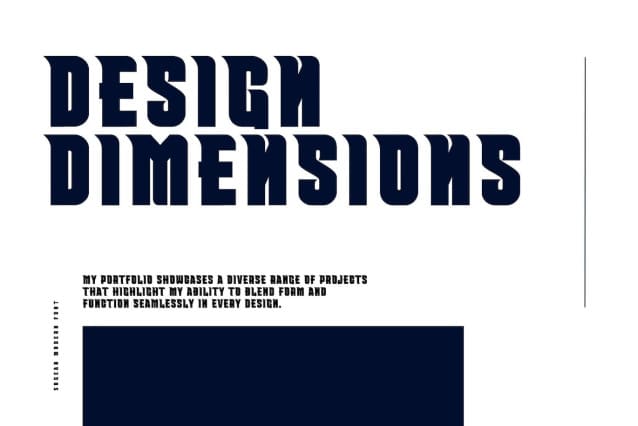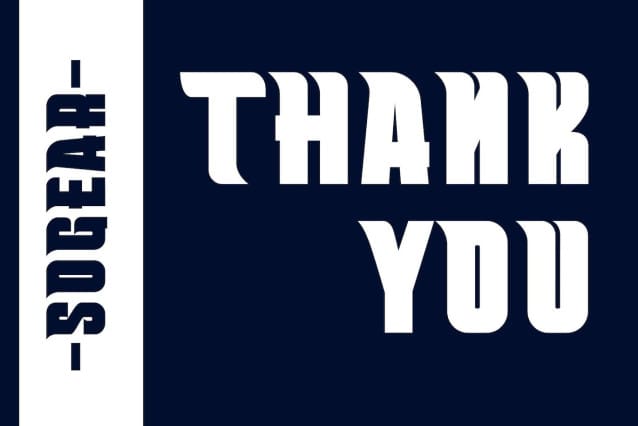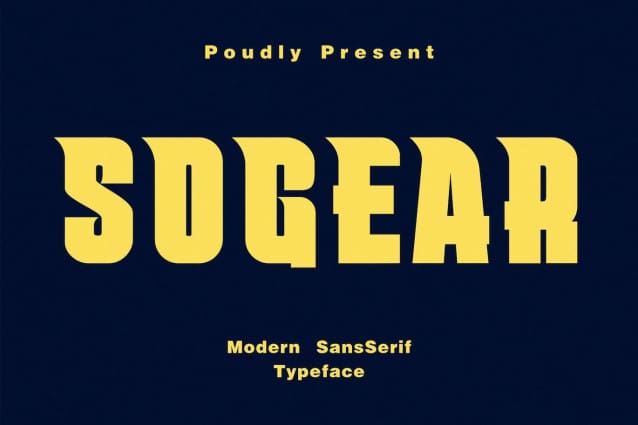
Sogear Font
Sogear Font a beautiful series of letters is encapsulated in this Sogear font. Neat lettering is perfect for writing needs that are modern and pleasing to the eye, there is a Modern impression but still looks Elegant when used for writing. Tidiness in the manufacture of each letter, is our top priority. You can have fun and be creative using this font product we made, because the results will definitely be very satisfying.